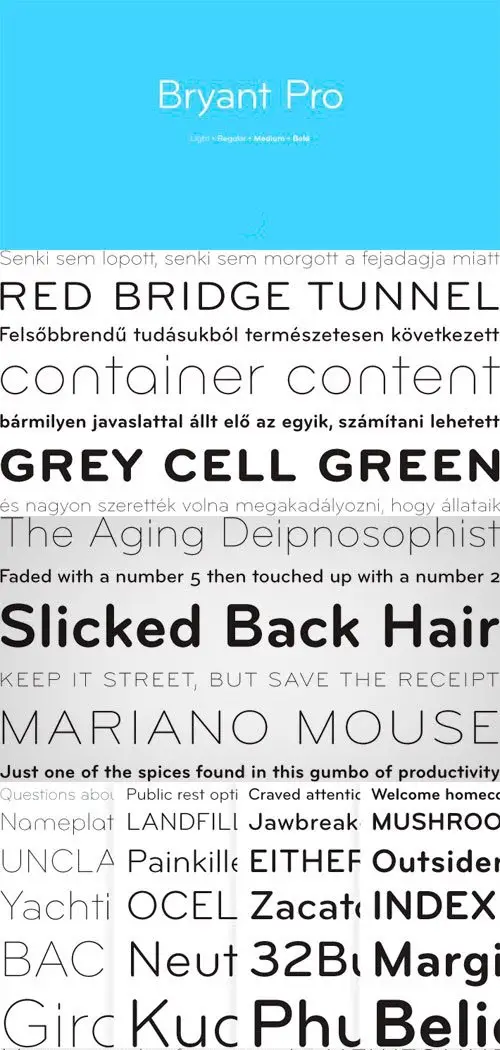
Long since replaced by computers, the mechanical lettering kits used by draftsmen and amateur sign makers served as the inspiration for the Bryant family of typefaces.